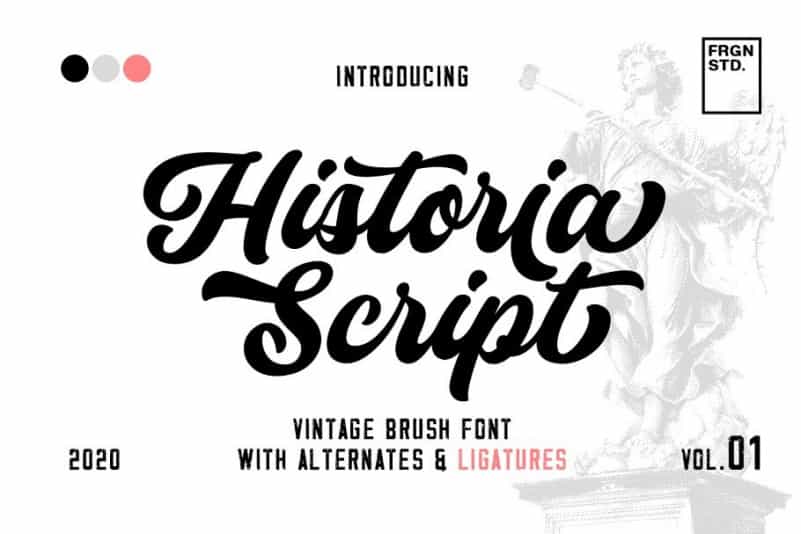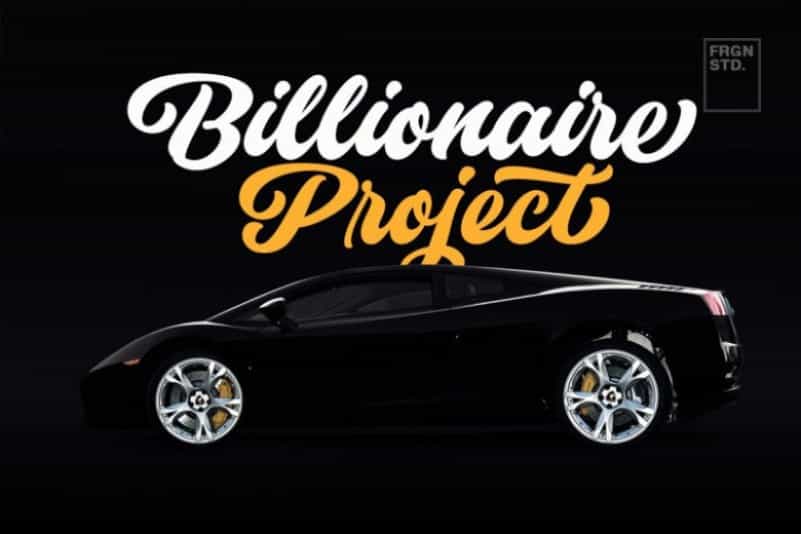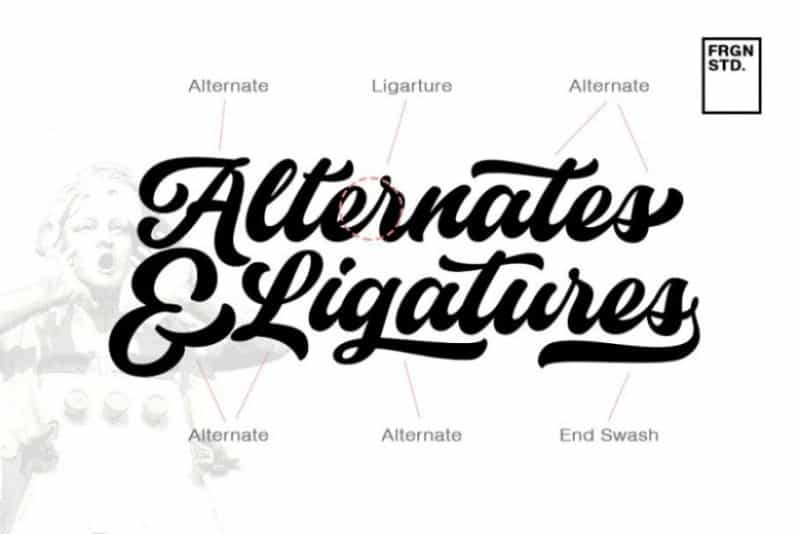
Historia script embodies an elegance with its appearance. Complete with ligatures, alternate styles, sets and decorative swashes to enhance your design projects. It can be used across applications such as headlines, signatures, logos, vintage wedding invites, t shirts, letterheads, signs, labels, newsletters, posters, badges and more.